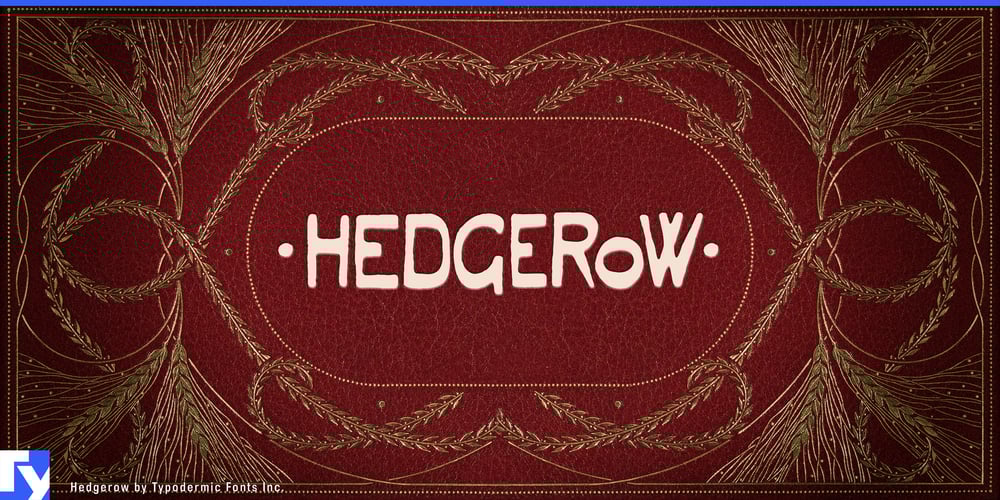
Hedgerow Font Family was designed by Ray Larabie and published by Typodermic. Hedgerow contains 1 styles and family package options. Venture into the realm of Hedgerow, a calligraphic typeface that weaves a spell as intricate as the vines that adorn a centuries-old stone wall. This font doesn’t just evoke the 19th century—it resurrects it, breathing life into every curve and flourish with the precision of a Victorian naturalist and the passion of a Romantic poet.Hedgerow’s letterforms dance across the page like fairy lights in a midsummer night’s dream, each glyph a portal to a world where the veil between reality and fantasy grows gossamer-thin. Inspired by the mystical liner notes of Led Zeppelin IV, this typeface carries within its DNA the whispers of ancient folklore and the echoes of timeless melodies. In the gentle light of day, Hedgerow paints a scene of pastoral bliss. Its Art Nouveau-influenced strokes evoke sun-dappled meadows and lazy afternoon picnics, where time slows to the rhythm of buzzing bees and rustling leaves. Here, each word becomes a flower in a typographic garden, blooming with the promise of simpler times and endless summers. But as twilight falls, Hedgerow reveals its more enigmatic nature. The same elegant curves that spoke of innocence by day now twist into something more… unsettling. Shadows lengthen between the letters, and what once seemed whimsical now feels charged with occult significance. In this nocturnal incarnation, Hedgerow becomes the perfect vessel for tales of gothic horror, esoteric wisdom, and things that go bump in the night. The true magic of Hedgerow, however, lies in its OpenType sorcery. In the hands of a skilled designer, its capricious character pairs interlock and transform, like ivy creeping across an ancient tome. These letterform mutations aren’t just decorative—they’re alive, evolving before your eyes to create words that seem to whisper secrets from another time. Hedgerow speaks in many tongues, its linguistic roots spreading far and wide across the European landscape. From the misty moors of Scotland to the sun-baked plains of Spain, this typeface adapts, chameleon-like, to capture the essence of each language it touches. It’s as comfortable setting Welsh poetry as it is crafting Italian opera librettos, each glyph a linguistic changeling ready to take on new forms.To choose Hedgerow is to embark on a typographic pilgrimage through time and space. Whether you’re designing a whimsical children’s book or crafting the cover for a spine-chilling horror novel, Hedgerow stands ready to transport your audience to a world where every letter tells a story, and every word is a key to unlock the extraordinary.